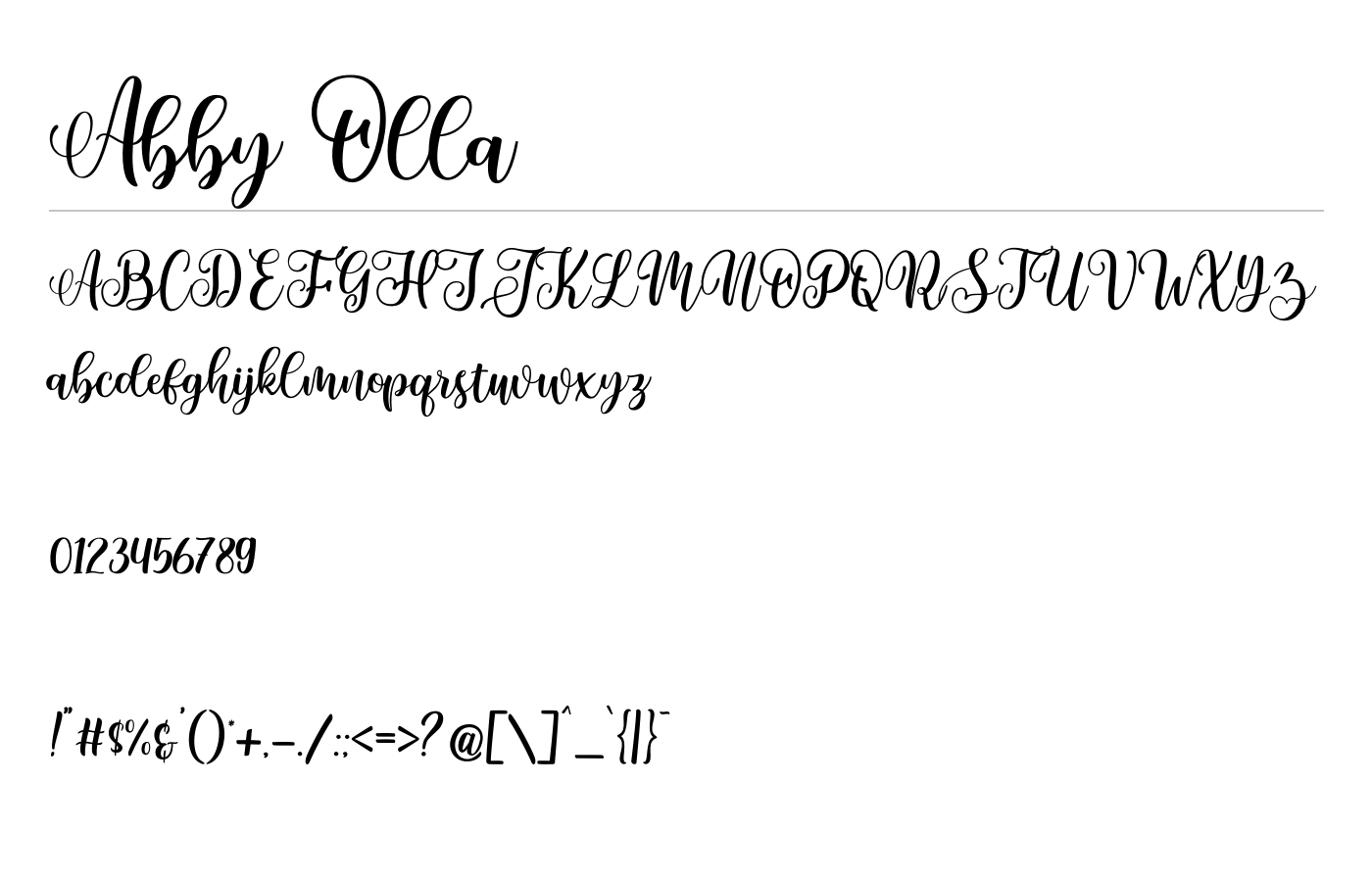
Abby Olla is a stylish script font characterized by elegant, flowing letterforms with a smooth and refined stroke that combine both delicate and bold elements. It exudes a graceful and feminine personality, making it ideal for branding, invitations, and decorative headlines where a sophisticated yet approachable impression is desired. This font works beautifully in projects that seek a touch of elegance and charm, fitting well with fashion, luxury, and creative designs.
Abby Olla Font
About Abby Olla Font